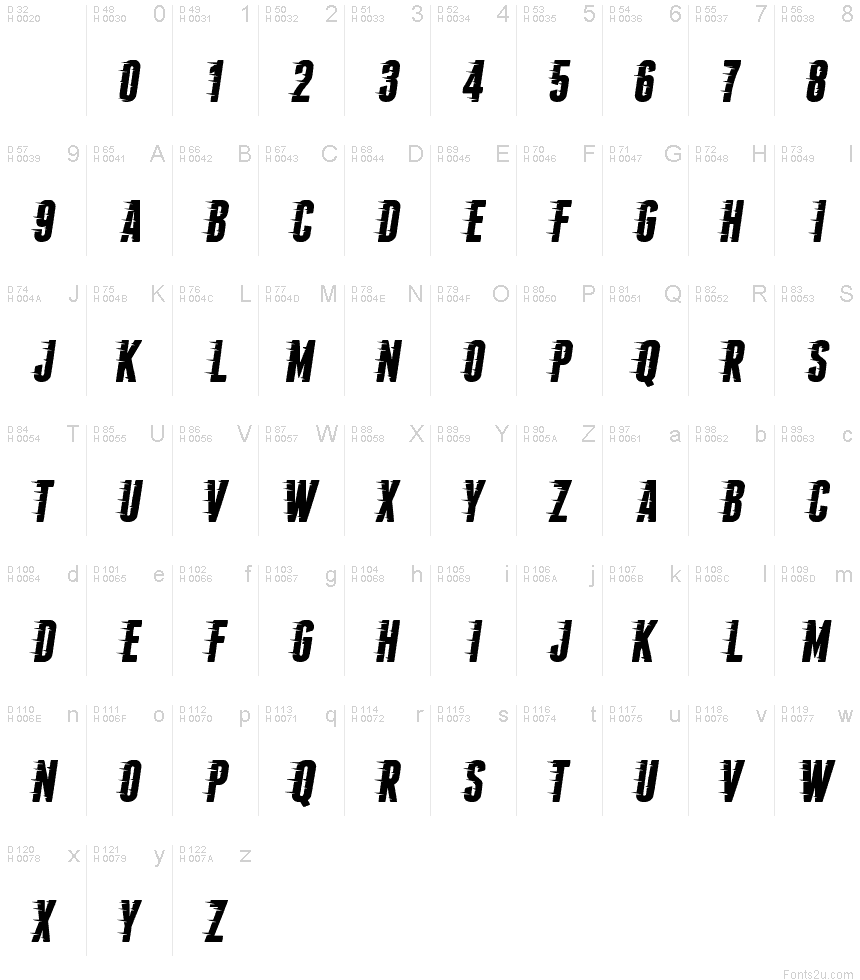
Fopi Rush is a free decorative display font with towering, tightly packed capitals, broad strokes, and a forceful forward lean. Deep, uneven horizontal gashes repeatedly cut through the broad strokes, leaving sharp splinters and open gaps that suggest violent speed.
Sports merchandise is its strongest medium, especially racing jerseys and team graphics that depend on impact, competition, and a sense of fast movement. The same fractured treatment fits action-game title cards, concert posters, and aggressive streetwear branding with an urban edge.